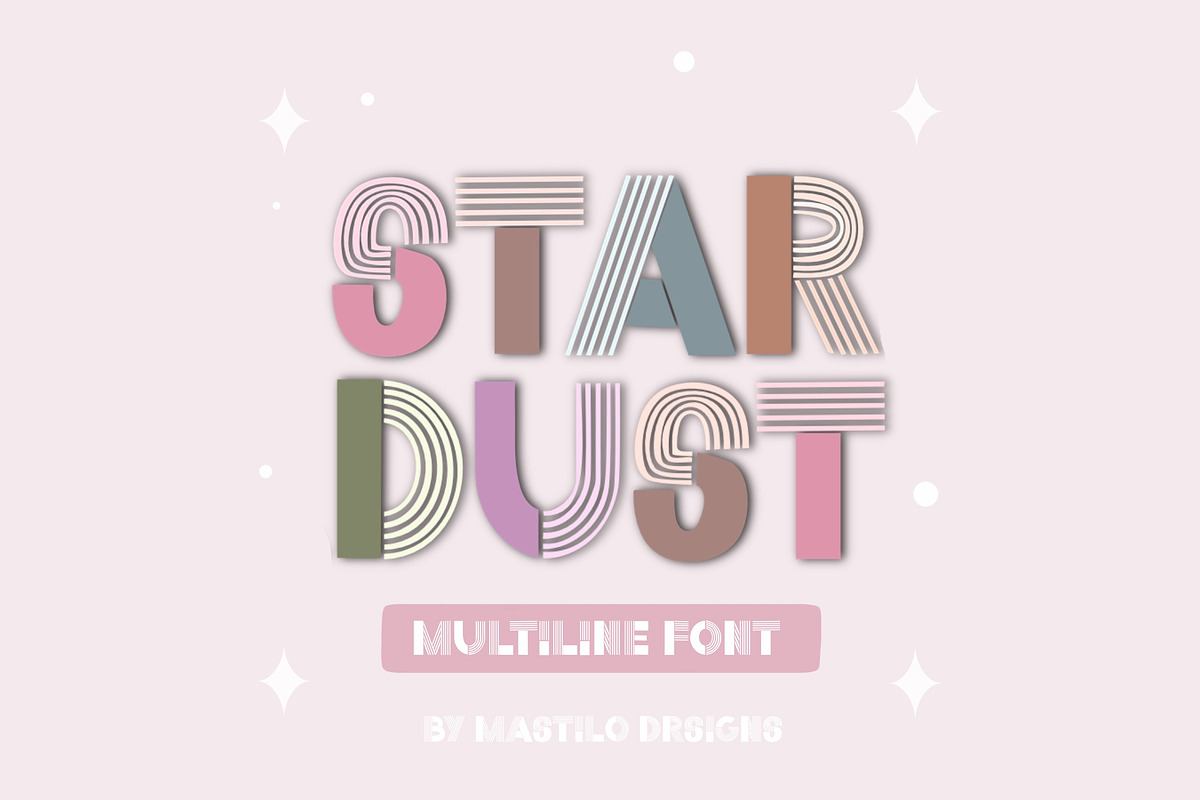
Stardust Multiline Retro Font Free Download
Please note, to use this font for commercial purposes, you must purchase the full version. Stardust is a bold and stylish multiline retro font that brings a vintage feel to your designs. With its unique layered structure and dynamic appearance, this font is perfect for logos, posters, branding, and creative projects that need a touch of retro charm. Whether you're working on a nostalgic design or a modern project with a vintage twist, Stardust adds personality and flair to your work. Test it out and enjoy free download access for personal use. Experience the eye-catching style of Stardust Multiline Retro Font Free Download before purchasing the commercial license. Bring a retro vibe to your designs with Stardust.